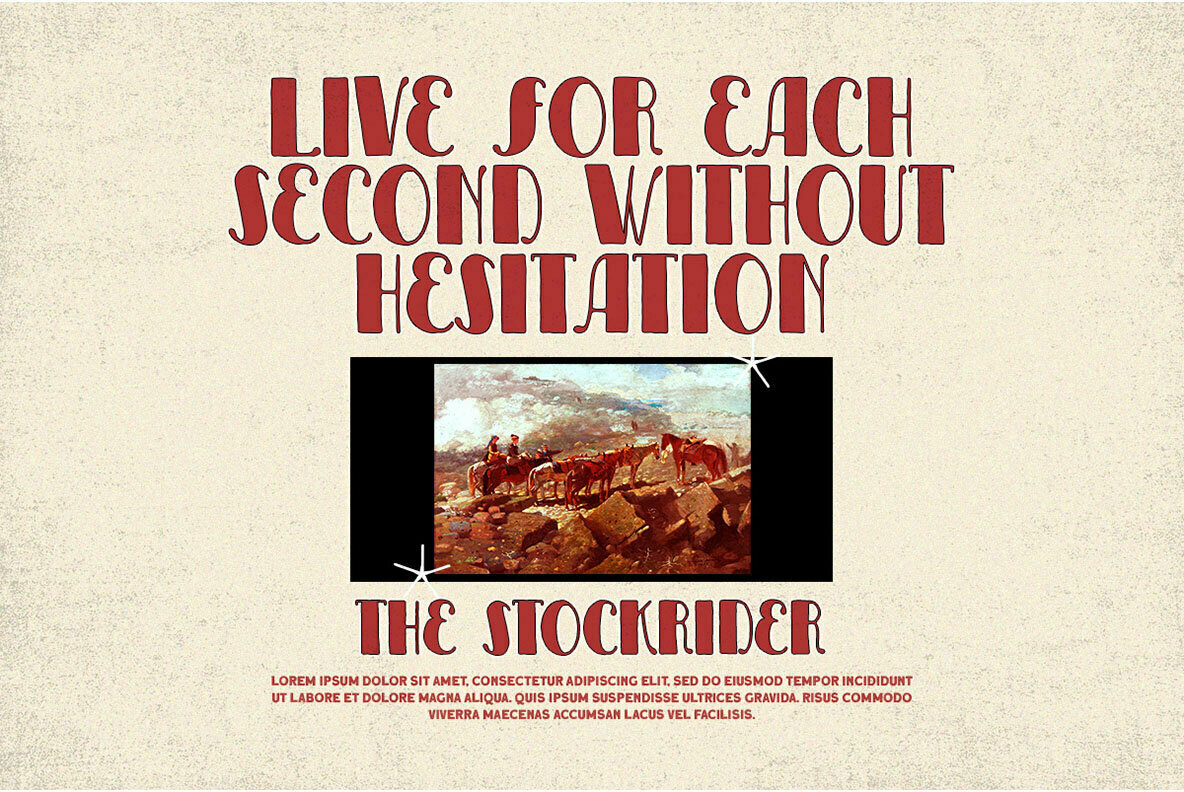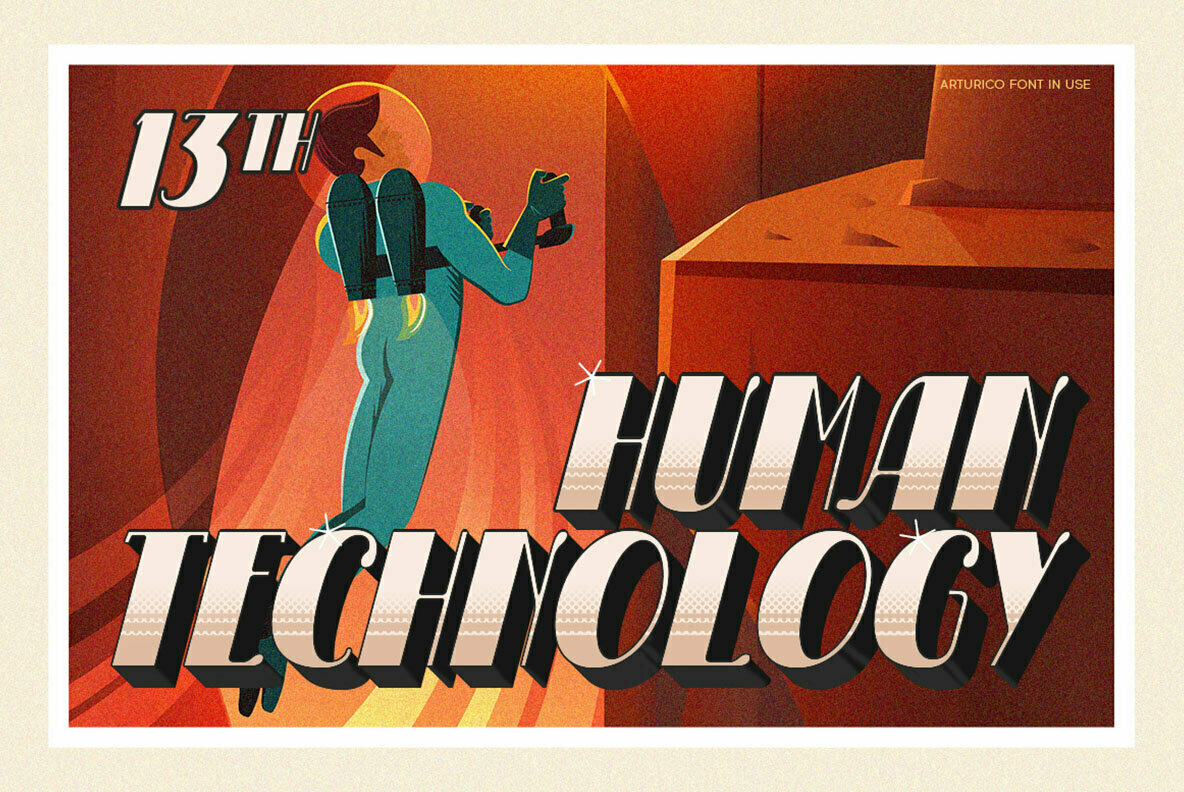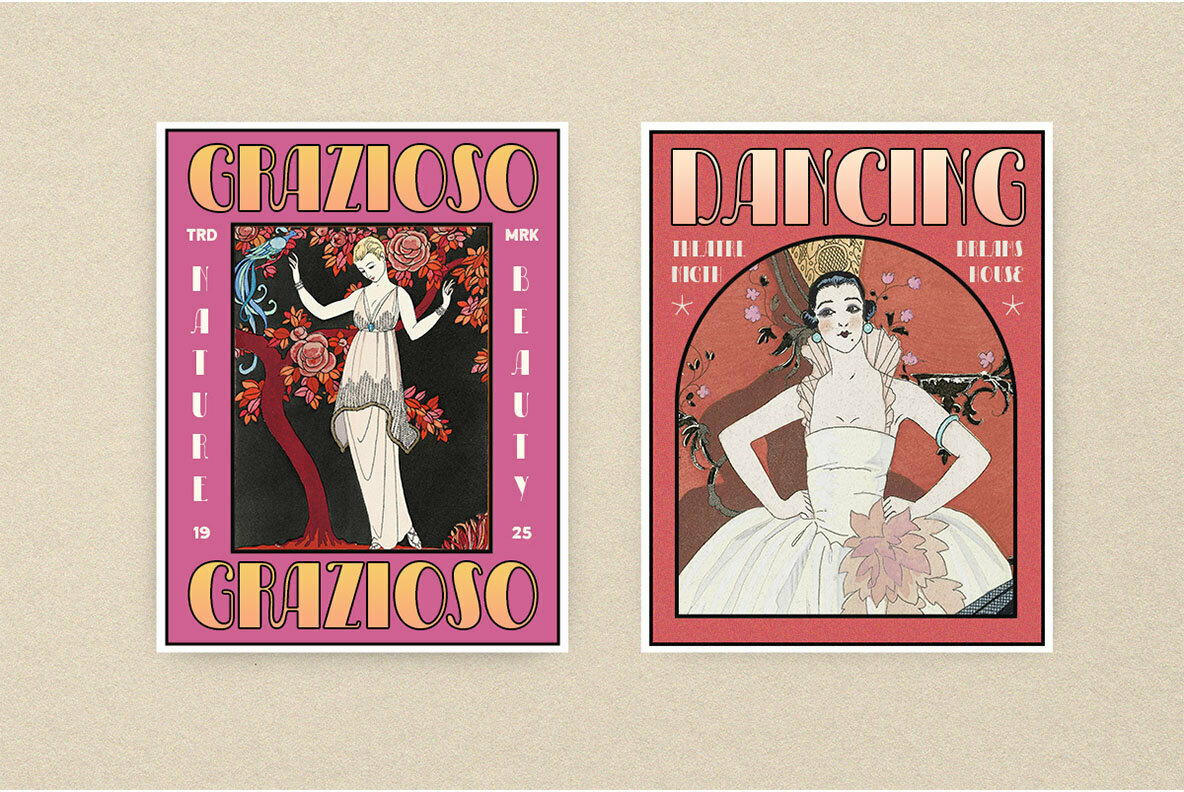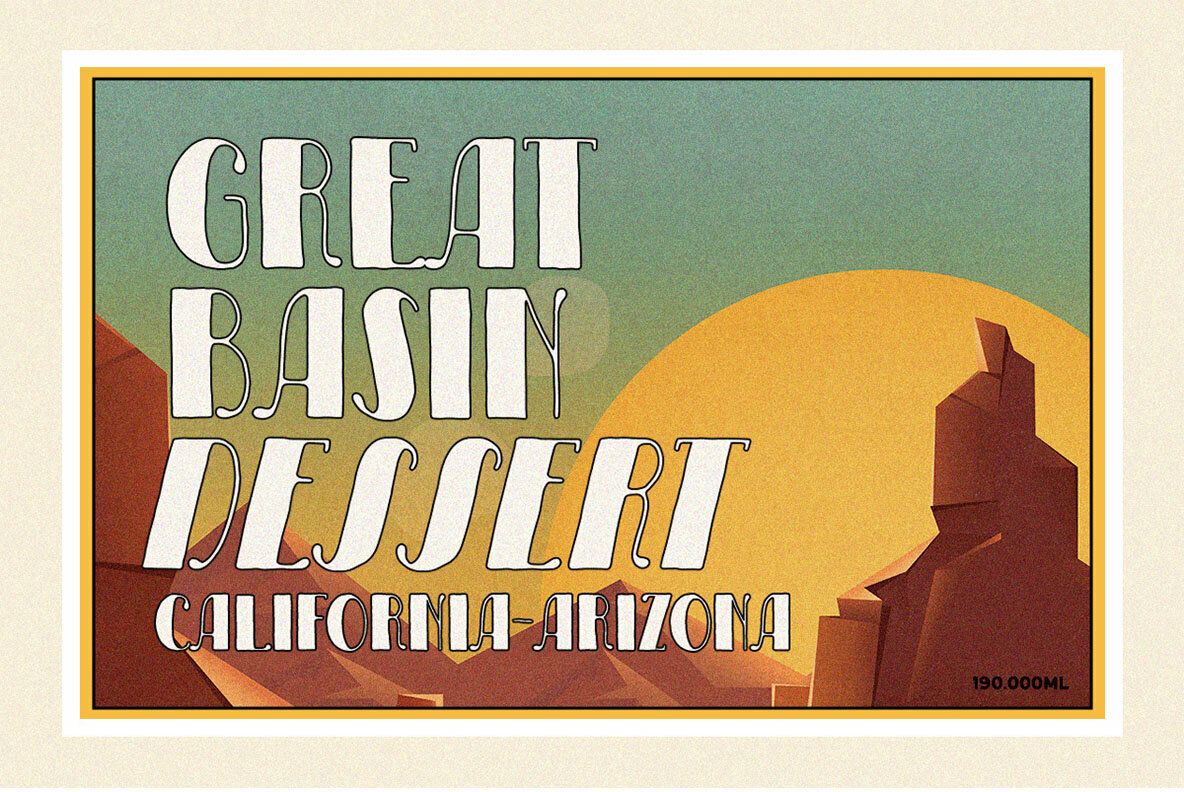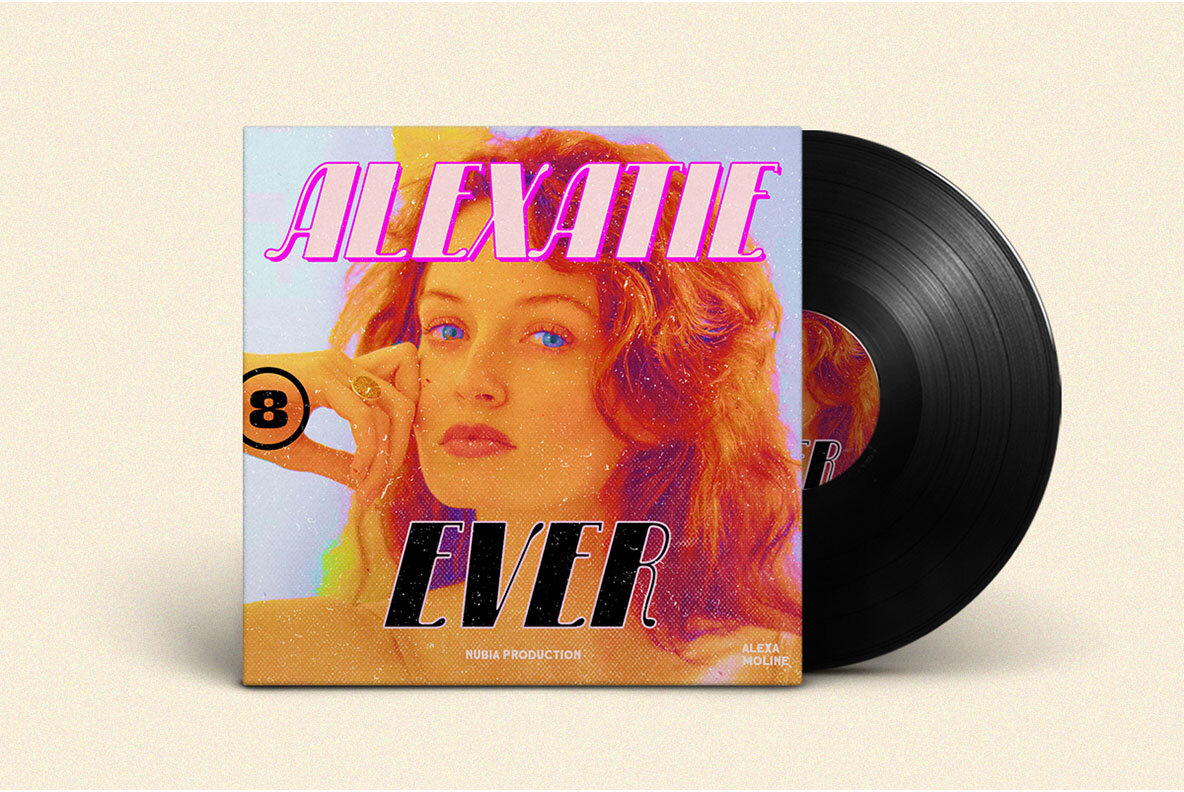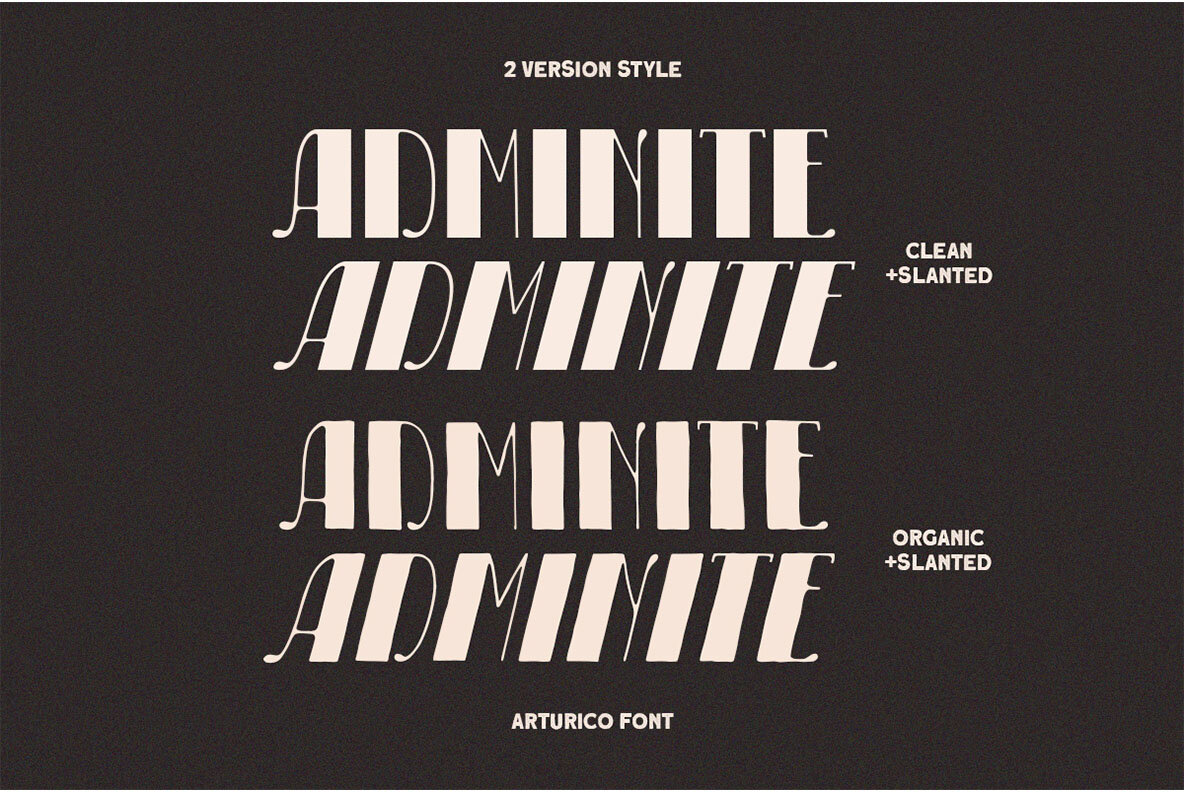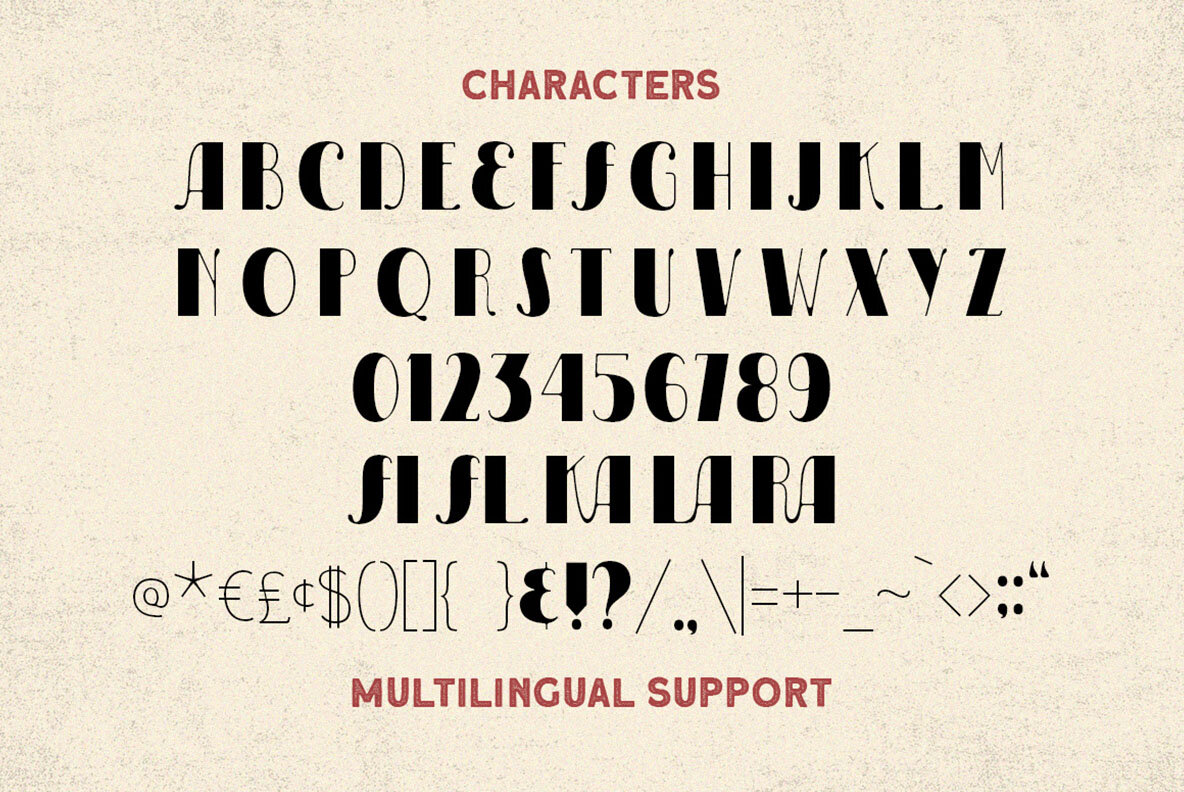
Arturico Font
Arturico is a font that has been designed to be used in logos and other formal types of design. It's got an old-fashioned feel, with the style being reminiscent of signs from decades ago such as those found on gas stations or billboards during summertime when there were more flat color schemes instead if scrolling through digital information all day long!